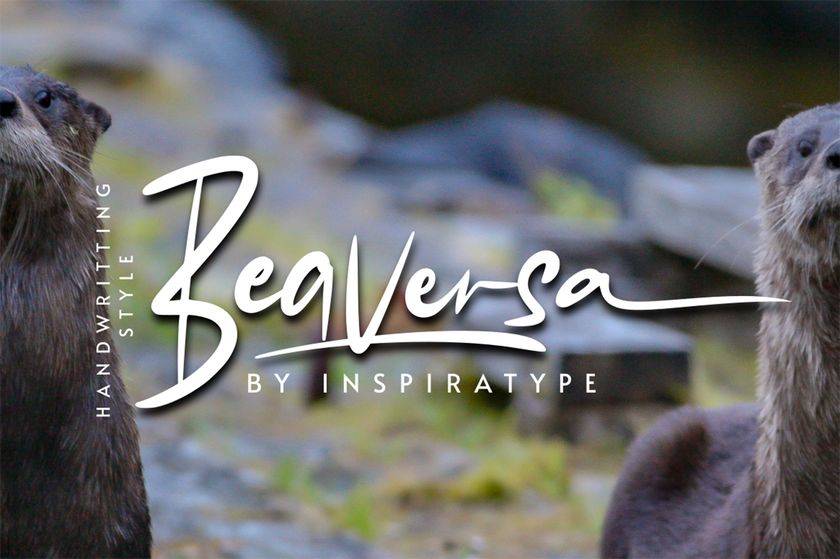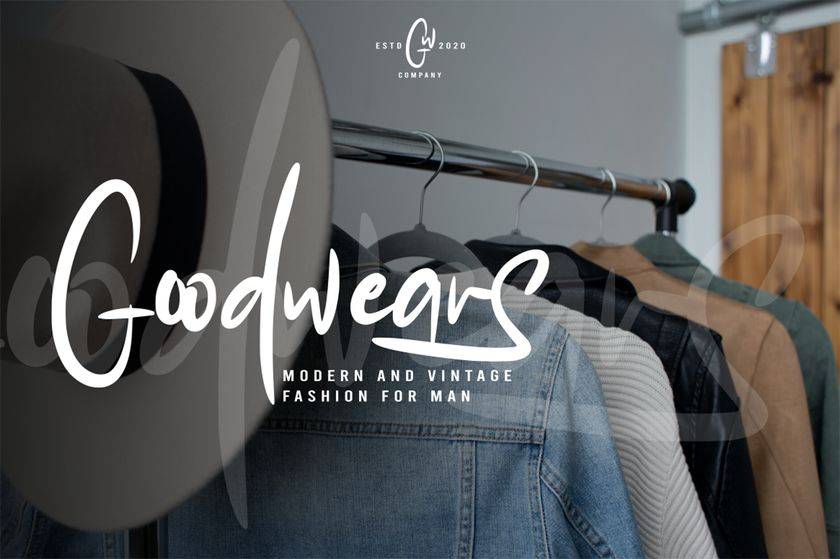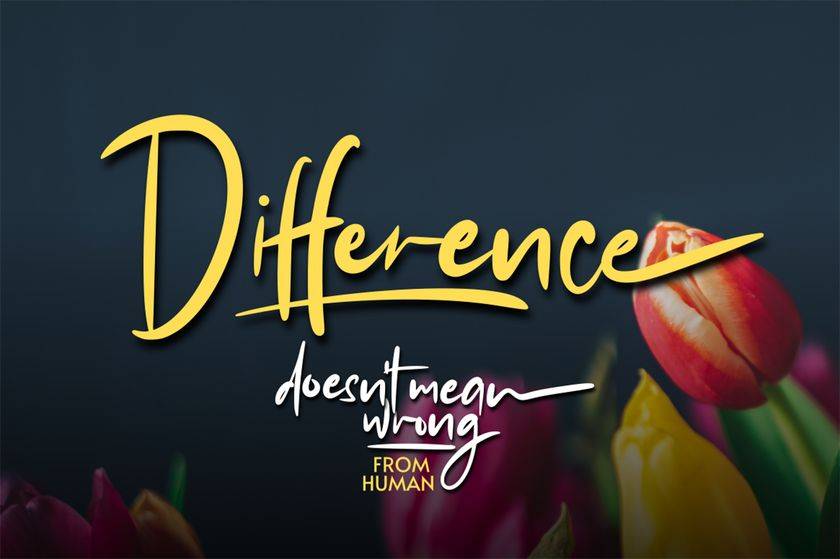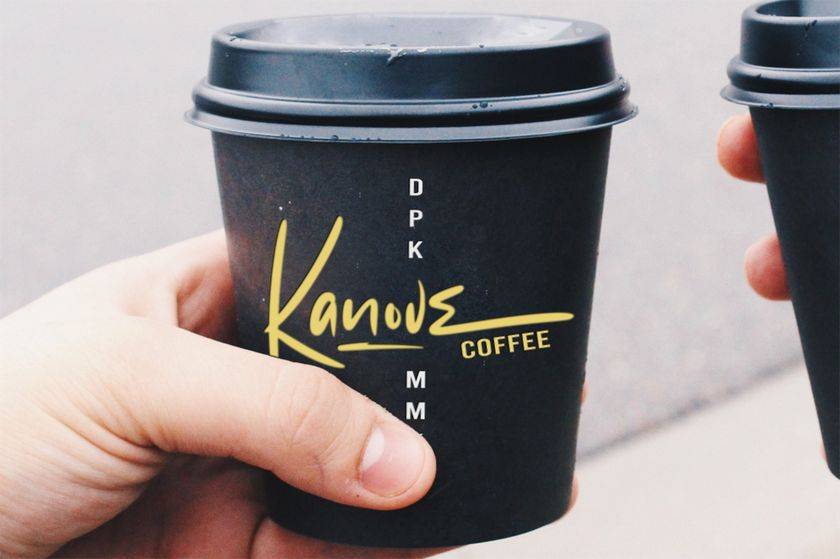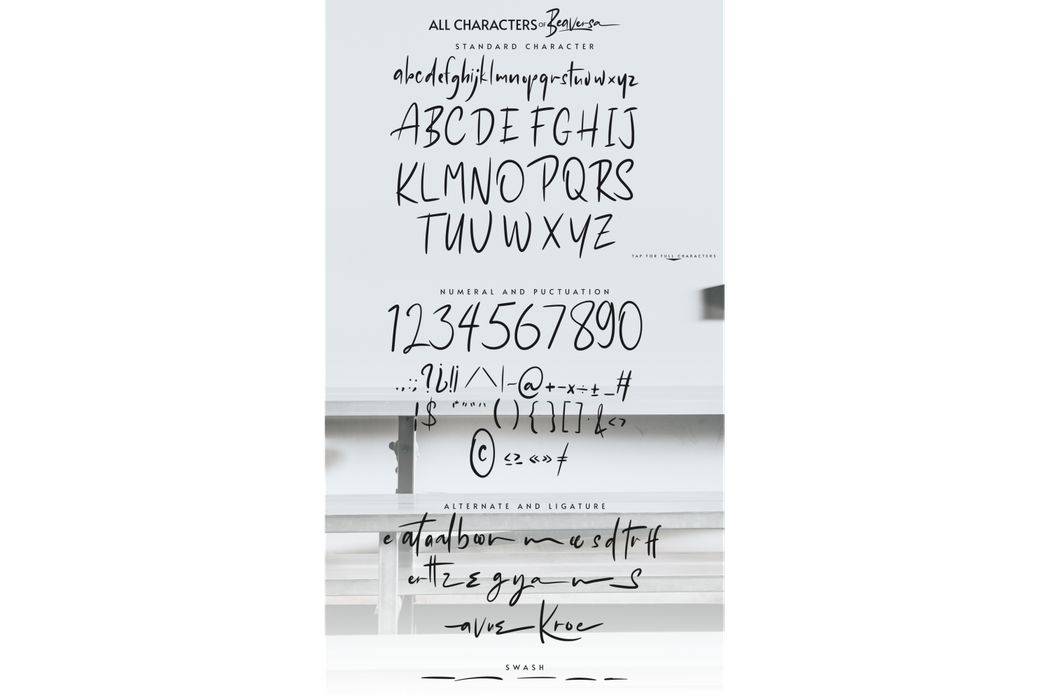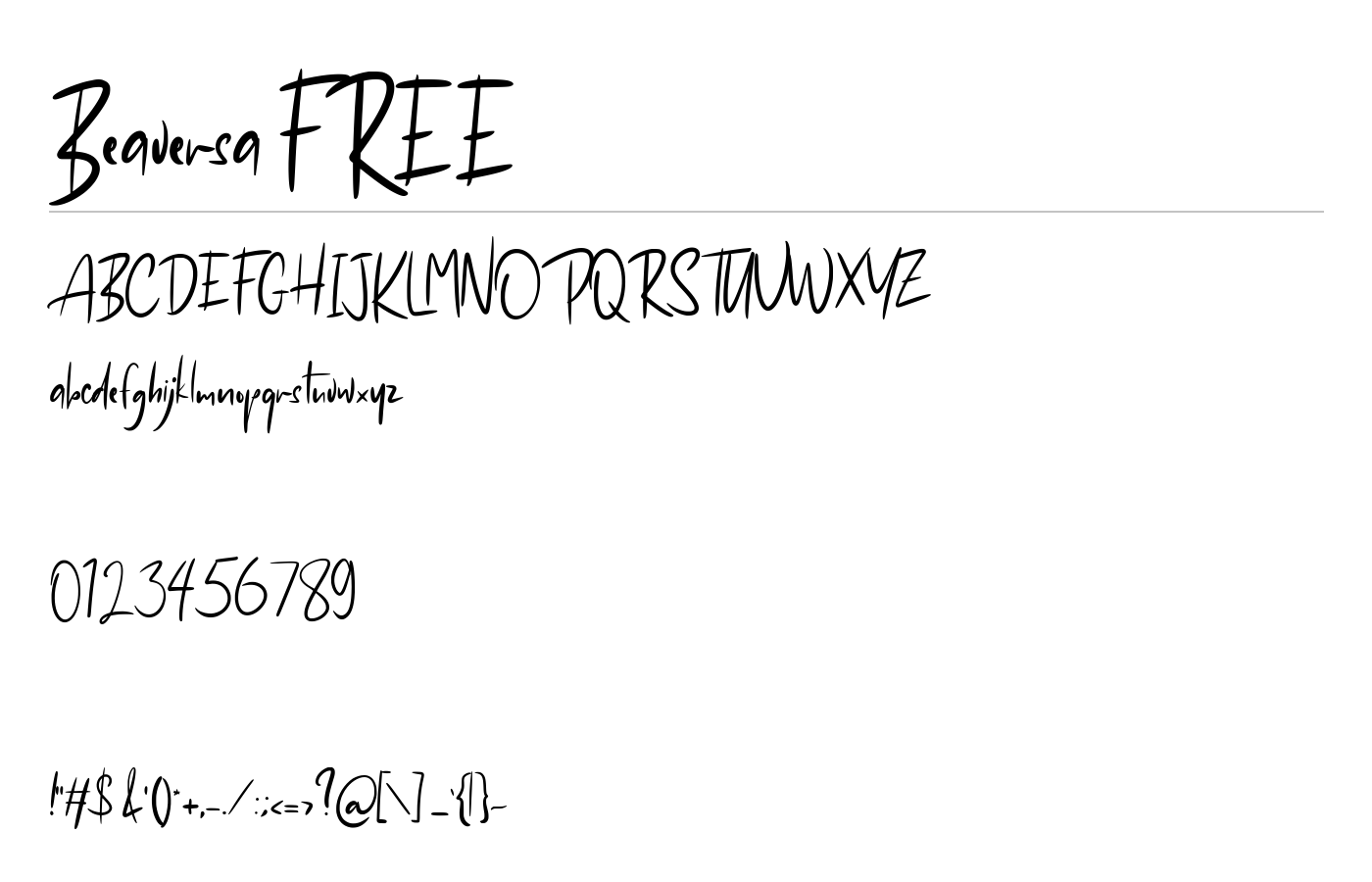
Beaversa is a slender, hand-drawn script font characterized by its energetic, slightly irregular strokes that give it a casual, personal feel. Its tall, narrow letterforms and lively flow make it perfect for creative, informal designs like logos, social media graphics, and playful headlines where a human touch is desired. This font adds a friendly and approachable vibe while maintaining clear readability across various creative projects.
Beaversa Font
About Beaversa Font
| Font family | Beaversa Font |
| Designer | Inspiratype |